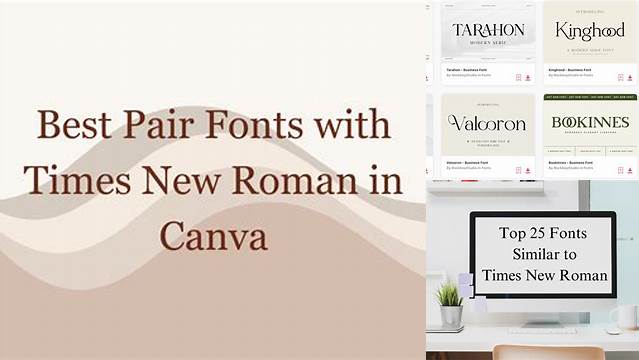
Canva Fonts Like Times New Roman: Top Alternatives
Are you looking for Canva fonts similar to Times New Roman? Well, you've come to the right place! Times New Roman is a classic, elegant typeface that has been a staple in the world of writing and design for decades. Its clean lines and traditional serifs make it a versatile choice for everything from formal documents to creative projects. But what if you're working on Canva and want a similar aesthetic? Don't worry, guys, Canva has a ton of amazing fonts that capture the essence of Times New Roman while adding their own unique flair. Let's dive into some fantastic alternatives that will give your designs that timeless appeal.
Why Look for Times New Roman Alternatives on Canva?
Before we jump into the font suggestions, let's quickly chat about why you might be seeking a Times New Roman substitute in the first place. Times New Roman is a fantastic font, no doubt, but sometimes you need a little variety, right? Maybe you want something that feels just a tad more modern, or perhaps you're aiming for a specific mood that Times New Roman doesn't quite nail. Plus, Canva's huge font library offers so many cool options that it's fun to explore and experiment!
Using different fonts can also help your designs stand out. While Times New Roman is widely recognized, it's also quite common. By choosing a similar yet distinct font, you can add a touch of originality to your work. This is especially important for branding, where you want your visuals to be memorable and unique. So, whether you're creating a presentation, a social media graphic, or a document, finding the right font alternative can make a world of difference.
Another reason to explore alternatives is to ensure readability across different platforms and devices. While Times New Roman generally works well, some fonts might render better on screens or in certain sizes. Canva provides a range of fonts optimized for web and print, so you can find the perfect fit for your specific needs. Ultimately, the goal is to achieve a balance between aesthetics and functionality, ensuring your message is both visually appealing and easy to read. Plus, let's be honest, trying out new fonts is just plain fun! You never know what hidden gems you might discover in Canva's extensive collection.
Key Characteristics of Times New Roman
To find the best fonts on Canva similar to Times New Roman, it’s essential to understand what makes this font so distinctive. Times New Roman is a serif font, which means it has those little decorative strokes or “feet” at the ends of the letters. These serifs give the font a classic, formal, and very readable quality. It’s often used in books, newspapers, and academic papers because it’s easy on the eyes for long stretches of reading. Think of it as the reliable, old friend of the font world!
The font also has a high contrast between thick and thin strokes, which contributes to its elegant appearance. This contrast makes the letters visually interesting and helps to define their shape. The proportions of Times New Roman are also carefully balanced, with a consistent letter height and spacing that ensures readability. It's a font that's designed to be both functional and beautiful, a combination that has made it a favorite for generations.
When looking for alternatives, we want to keep these characteristics in mind. We're searching for fonts that share that serif structure, balanced proportions, and high readability. But we also want to find fonts that offer a fresh take, whether it’s a slightly different serif style, a unique letter shape, or an overall more modern feel. Understanding the core elements of Times New Roman allows us to make informed choices and select alternatives that truly capture its essence while bringing something new to the table. So, let’s keep these traits in mind as we explore the wonderful world of Canva fonts!
Top Canva Font Alternatives to Times New Roman
Okay, let's get to the good stuff! Here are some top-notch Canva font alternatives to Times New Roman that you're gonna love. These fonts share that classic serif vibe but each has its own personality, making them perfect for different projects and moods.
1. Playfair Display
First up, we have Playfair Display. This font is elegant and refined, with a touch of modern flair. It's got high contrast, just like Times New Roman, but its serifs are a bit more delicate and stylized. Playfair Display is fantastic for headings and titles, especially in projects where you want to convey a sense of sophistication and luxury. Imagine using it for a wedding invitation or a high-end magazine layout – stunning!
2. Lora
Next, let's talk about Lora. This is a well-balanced and contemporary serif font that's incredibly readable. Lora has roots in calligraphy, which gives it a slightly warmer and more inviting feel than Times New Roman. It works beautifully for body text, making it a great choice for blog posts, articles, and reports. Its subtle curves and balanced letterforms make it a pleasure to read, even in long passages. If you're looking for a font that's both elegant and approachable, Lora is a fantastic option.
3. Libre Baskerville
Libre Baskerville is another excellent alternative. It's inspired by the classic Baskerville typeface, known for its clean lines and readability. Libre Baskerville is specifically optimized for on-screen reading, making it a superb choice for websites and digital documents. It has a slightly wider letterform than Times New Roman, which enhances its legibility, especially at smaller sizes. This font is a great all-around option for projects that require a professional and polished look.
4. Arvo
If you want something with a bit more character, check out Arvo. This font is a geometric slab-serif, meaning it has thicker, more rectangular serifs. Arvo has a strong and sturdy feel, making it perfect for headlines and branding materials. It’s also highly readable, so you can use it for body text in shorter pieces. Its unique style adds a touch of modernity while still maintaining a classic serif structure. Arvo is a great choice when you want your text to make a statement.
5. Merriweather
Last but not least, we have Merriweather. This font was designed specifically to be pleasant to read on screens, making it an ideal choice for web content. Merriweather has a slightly condensed letterform and a generous x-height (the height of lowercase letters), which contributes to its excellent readability. It’s a versatile font that works well for both headlines and body text. If you’re creating a website or blog, Merriweather is definitely worth considering.
How to Use These Fonts in Canva
So, you've got your Canva font alternatives to Times New Roman picked out – awesome! Now, let's talk about how to actually use them in Canva. It's super easy, I promise! First, open up your Canva design and select the text you want to change. Then, look for the font dropdown menu in the toolbar at the top of the screen. Click on the dropdown, and you'll see a list of all the available fonts.
You can either scroll through the list to find your chosen font, or you can use the search bar to type in the name. Once you've found the font, just click on it, and your text will instantly update. Canva also lets you adjust the font size, color, and other properties, so you can fine-tune the look to perfectly match your design.
One cool tip is to use font combinations to create visual interest. For example, you might pair Playfair Display for your headings with Lora for your body text. This creates a nice contrast and helps to guide the reader's eye. Don't be afraid to experiment and try different combinations until you find something you love. Canva makes it super easy to play around with fonts and see what works best for your project. Remember, the right font can make a huge difference in the overall look and feel of your design, so have fun exploring!
Choosing the right font can feel like a big decision, but don't stress! Here are a few tips to help you nail it when selecting fonts on Canva similar to Times New Roman. First, think about the overall tone and message of your project. Are you going for formal and professional, or more casual and creative? The font you choose should reflect that tone. For example, Playfair Display might be perfect for a wedding invitation, while Lora could be a great choice for a blog post.
Readability is another key factor. If your text is hard to read, people are going to tune out, no matter how beautiful the font is. Make sure the font is clear and legible, especially for body text. Consider the size and spacing of the letters, as well as the contrast between the text and the background. Fonts like Libre Baskerville and Merriweather are specifically designed for readability, making them excellent choices for longer passages of text.
Think about font pairing as well. Combining different fonts can add visual interest and hierarchy to your design. A common strategy is to pair a serif font (like our Times New Roman alternatives) with a sans-serif font (which lacks the little serifs). This creates a nice contrast that's pleasing to the eye. Canva has lots of pre-made font combinations you can try, or you can experiment and create your own.
Finally, don't be afraid to break the rules! While these tips can help guide you, design is ultimately about expressing your creativity. Try out different fonts, play with sizes and colors, and see what feels right for your project. Canva offers a fantastic playground for font exploration, so have fun and let your creativity shine!
So there you have it, guys! A bunch of fantastic fonts on Canva similar to Times New Roman that you can use to spice up your designs. Whether you're looking for something elegant, readable, or just a little bit different, Canva's got you covered. Remember, the right font can make a huge difference in how your message is received, so take the time to explore your options and find the perfect fit. Happy designing!